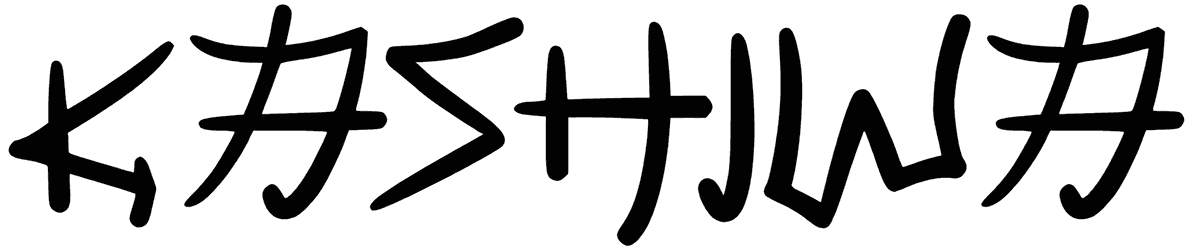
Kashiwa Font
If broken and messy lines appeal to you, and you want to add some foreign spice to your writing, Kashiwa is what you want. This samurai font has scribal typefaces that recall the geometric shapes of East Asia and is a go…
If broken and messy lines appeal to you, and you want to add some foreign spice to your writing, Kashiwa is what you want. This samurai font has scribal typefaces that recall the geometric shapes of East Asia and is a good choice for those interested in these traditions.
Using this foreign-looking font, you can create a unique combination in posters, packaging, and t-shirts that will multiply your sales. So ignore the lack of lowercase letters and prepare yourself to stand out.